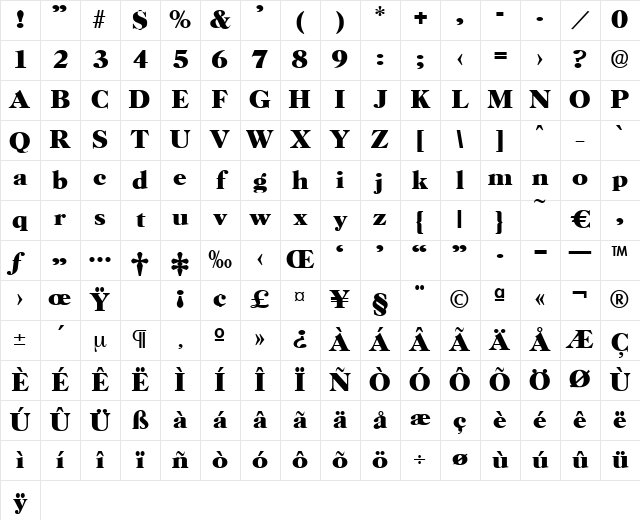
Horsham-Bold Regular
Design Context for Horsham-Bold
Horsham-Bold is a composed and adaptable typeface that performs quietly and consistently across a wide range of design contexts. Its bold stroke weight gives it real presence on the page.